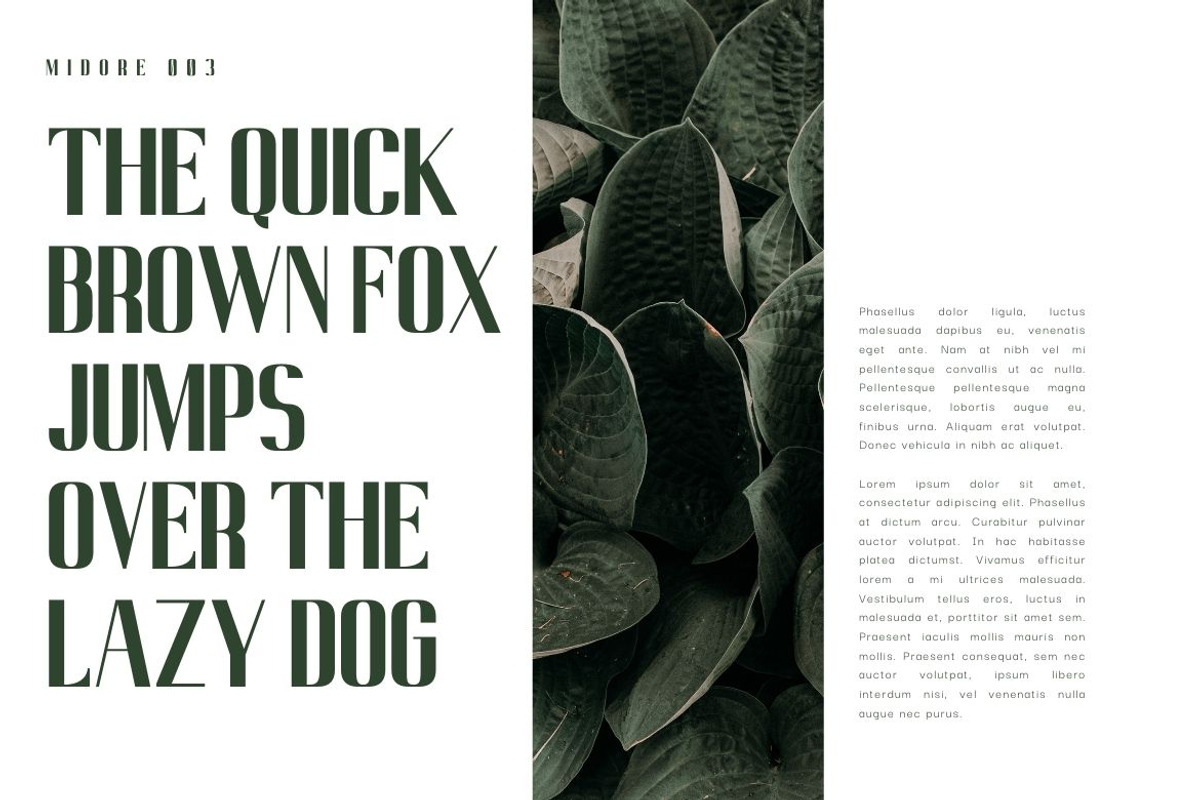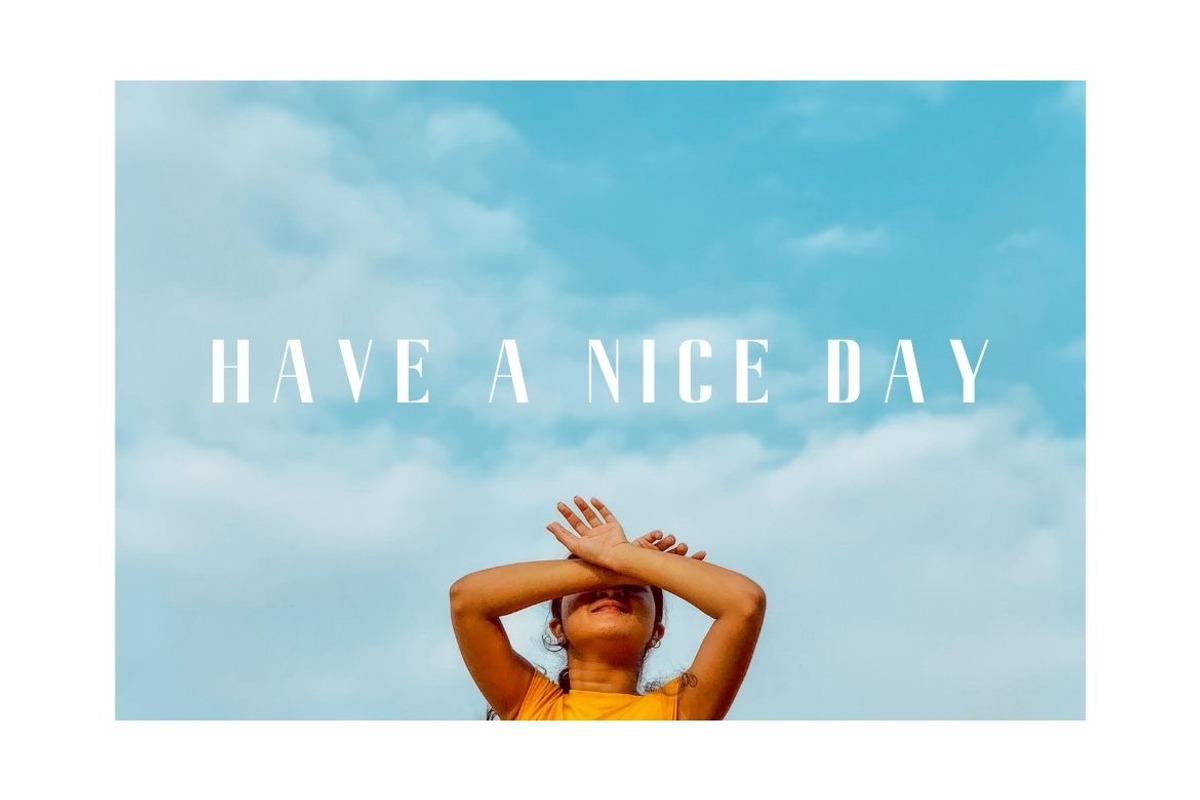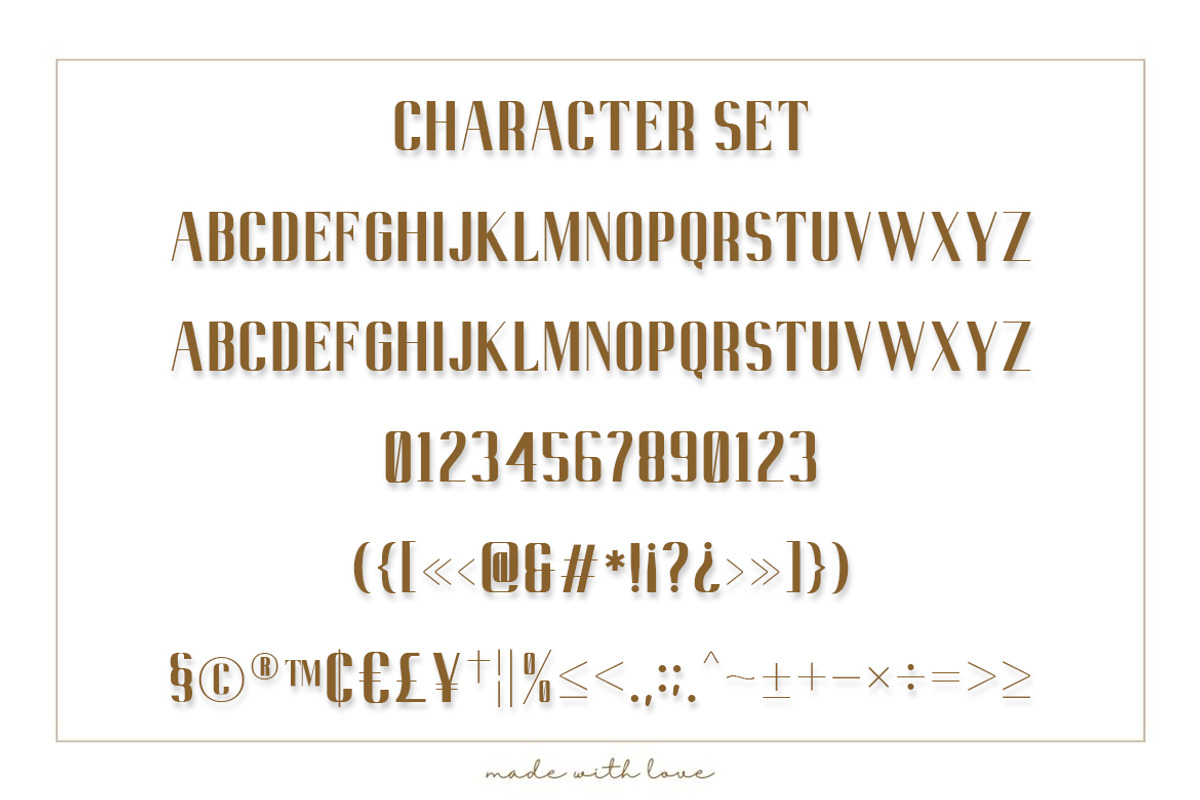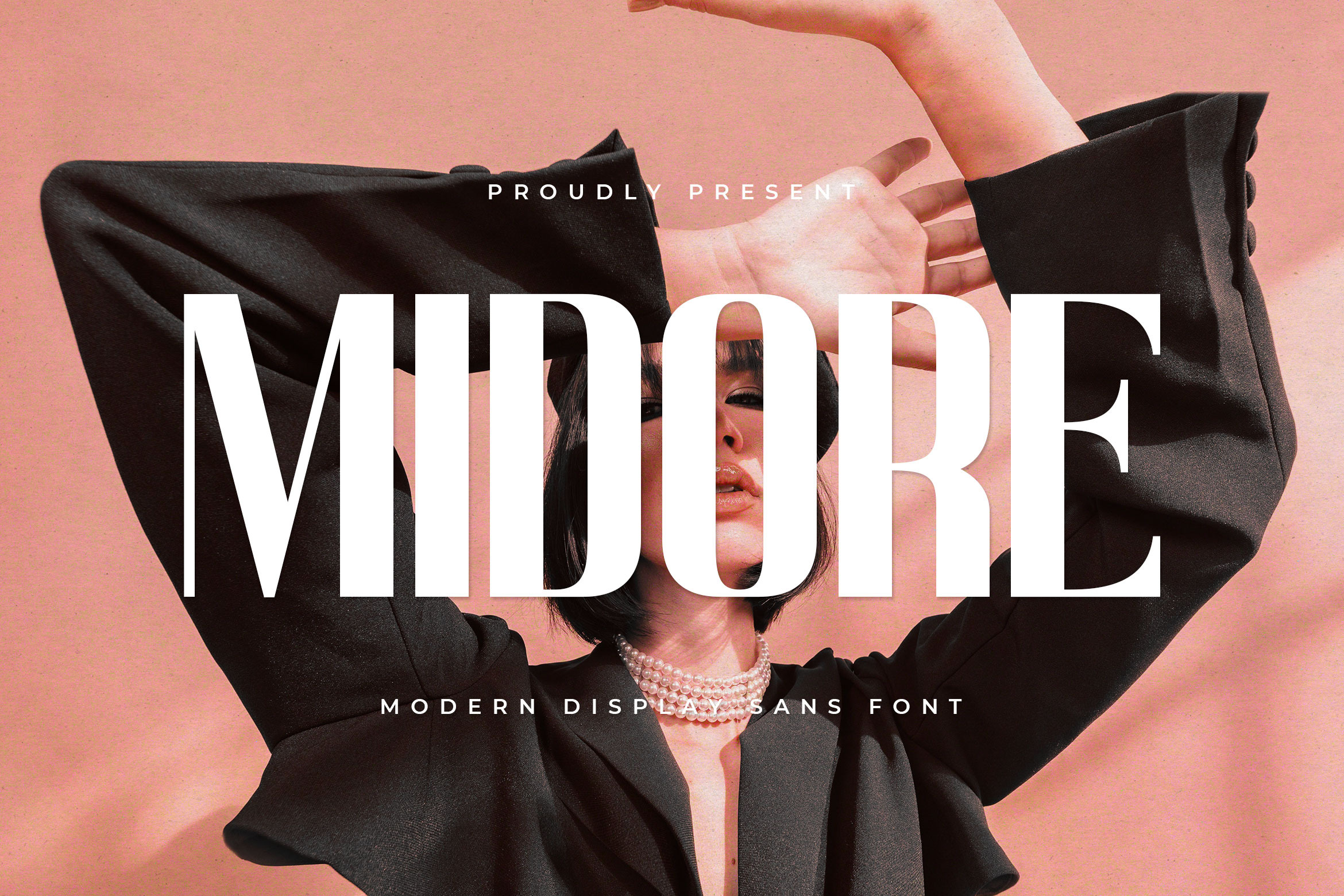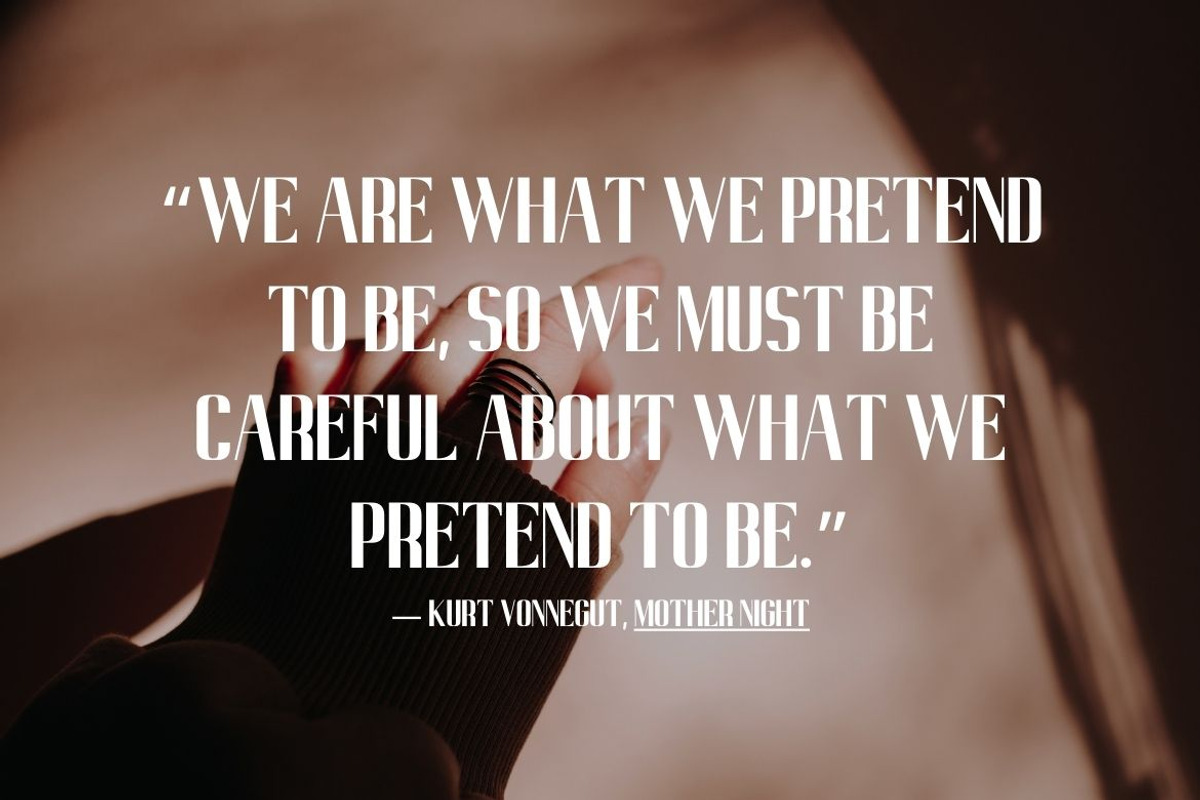
Midore - Modern Sans Font
Midore is an elegant and modern san serif font . With high contrast glyphs, giving it a feminine and masculine quality, modern, and easy to read. Great in layout design for quotes or body copy, best used as a display for headings, logos, branding, magazines, product packaging, invitations, and others. This font is easy to use.
- All Caps Font
- Numbers, fractions
- Punctuation and symbols